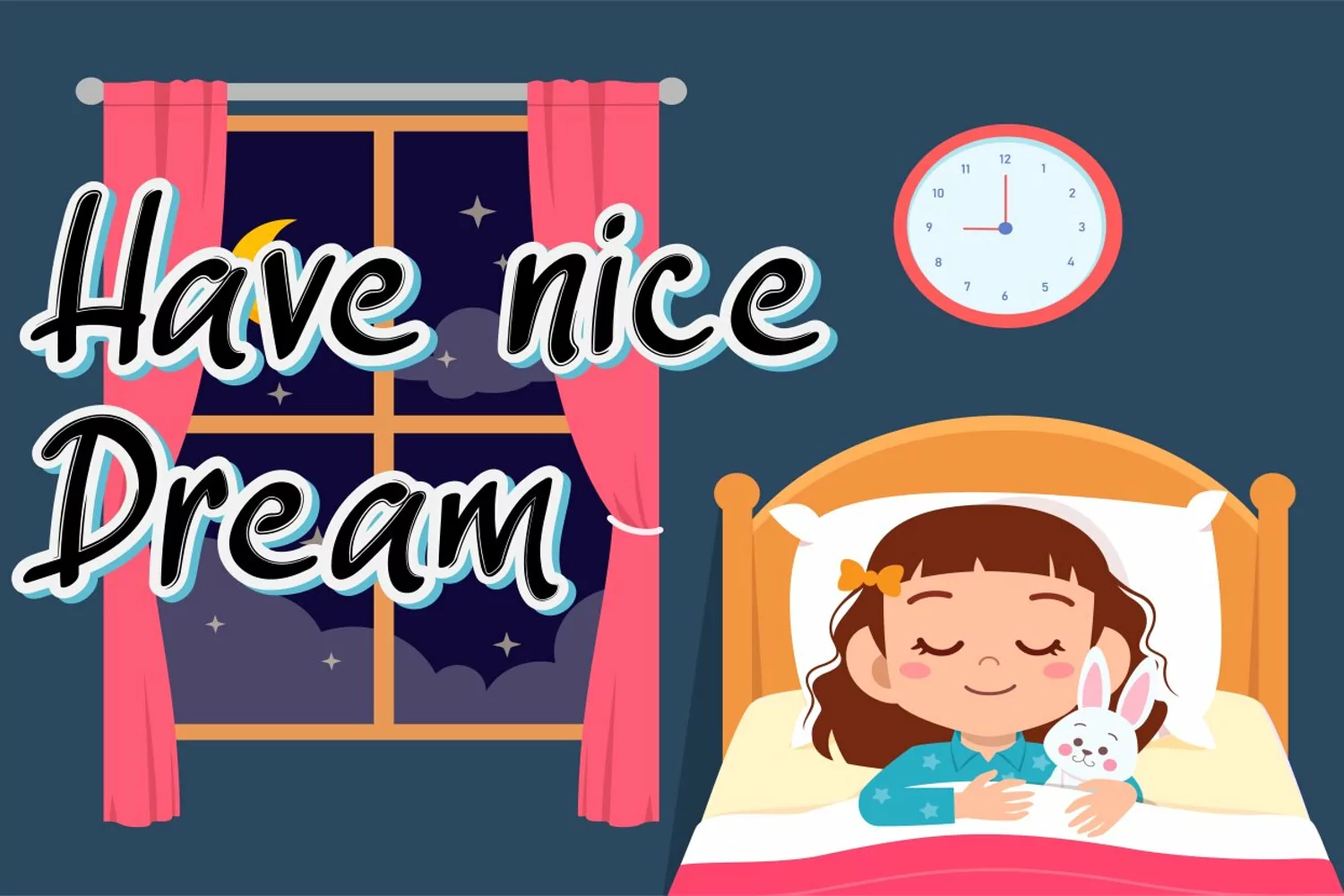
“Summer Night” is a simple and interesting display font. Its friendly feel makes this font incredibly versatile, fitting a wide range of contexts. It looks stunning on thank you cards, quotes, greeting cards, logos, business cards and every other design which needs of a art. Add it to your creative ideas and notice how it makes them stand out!